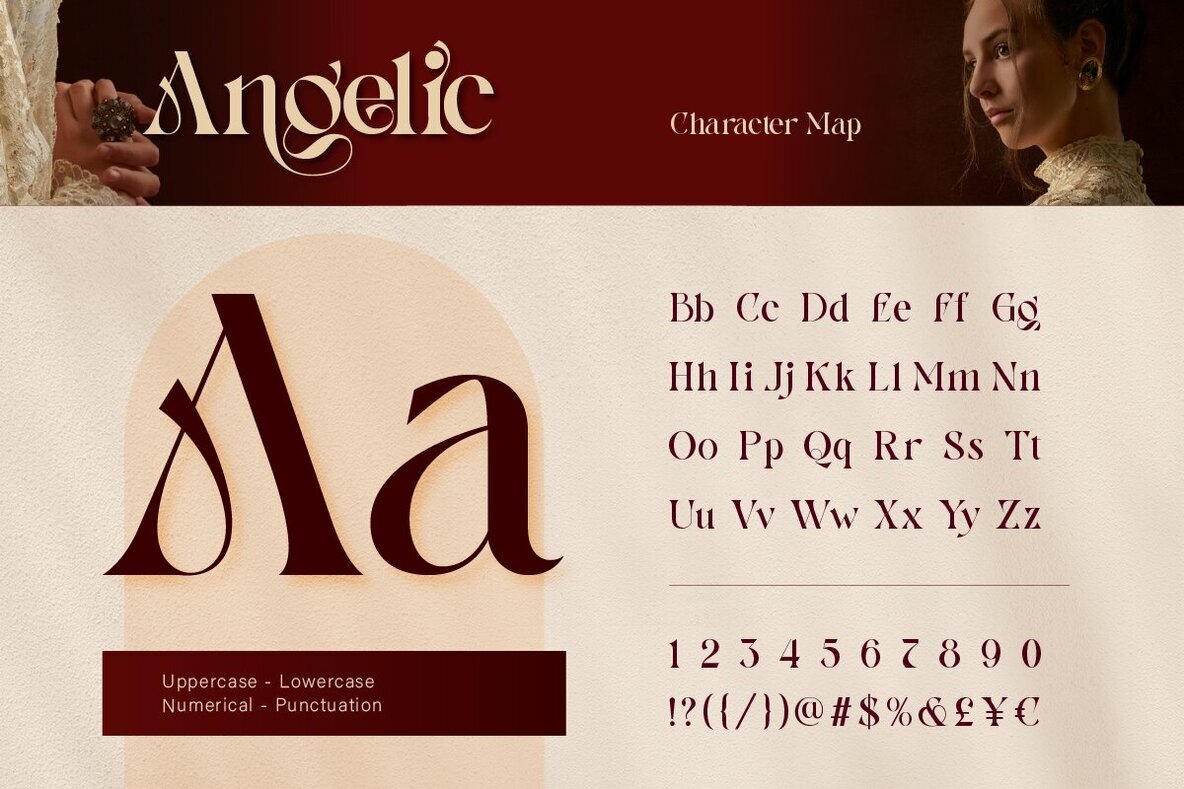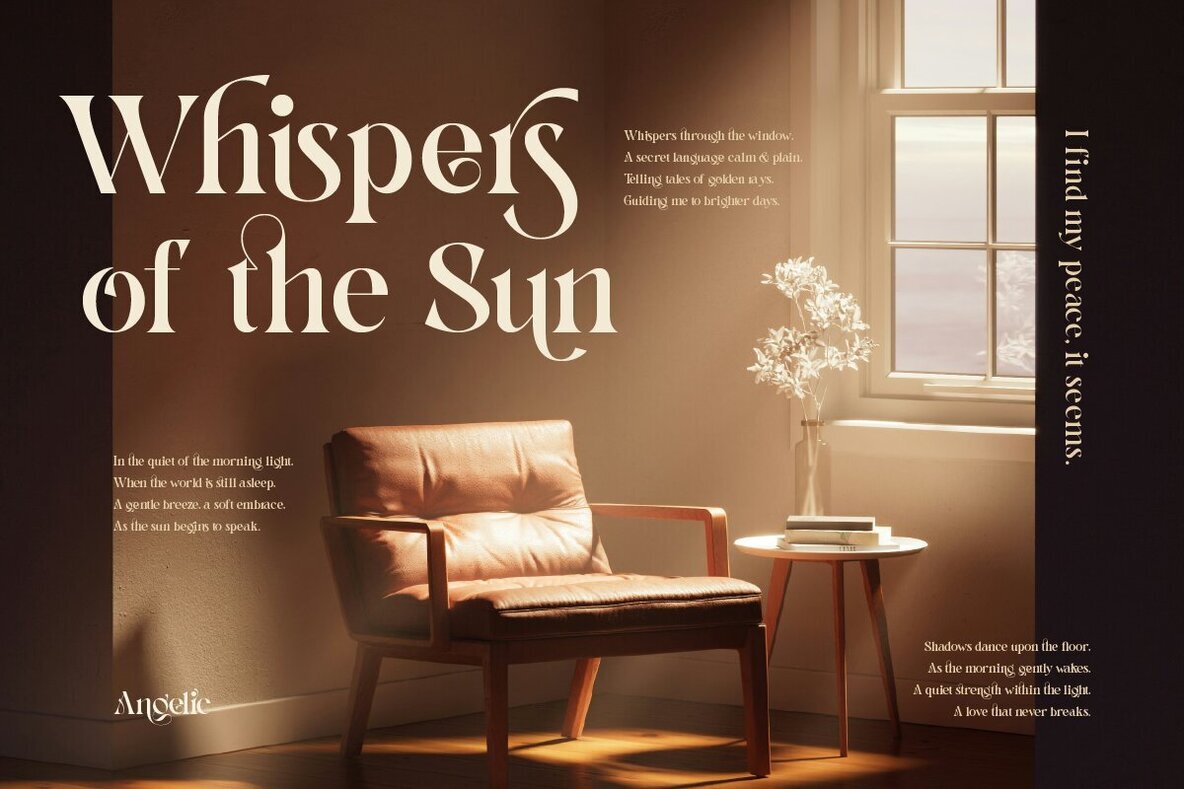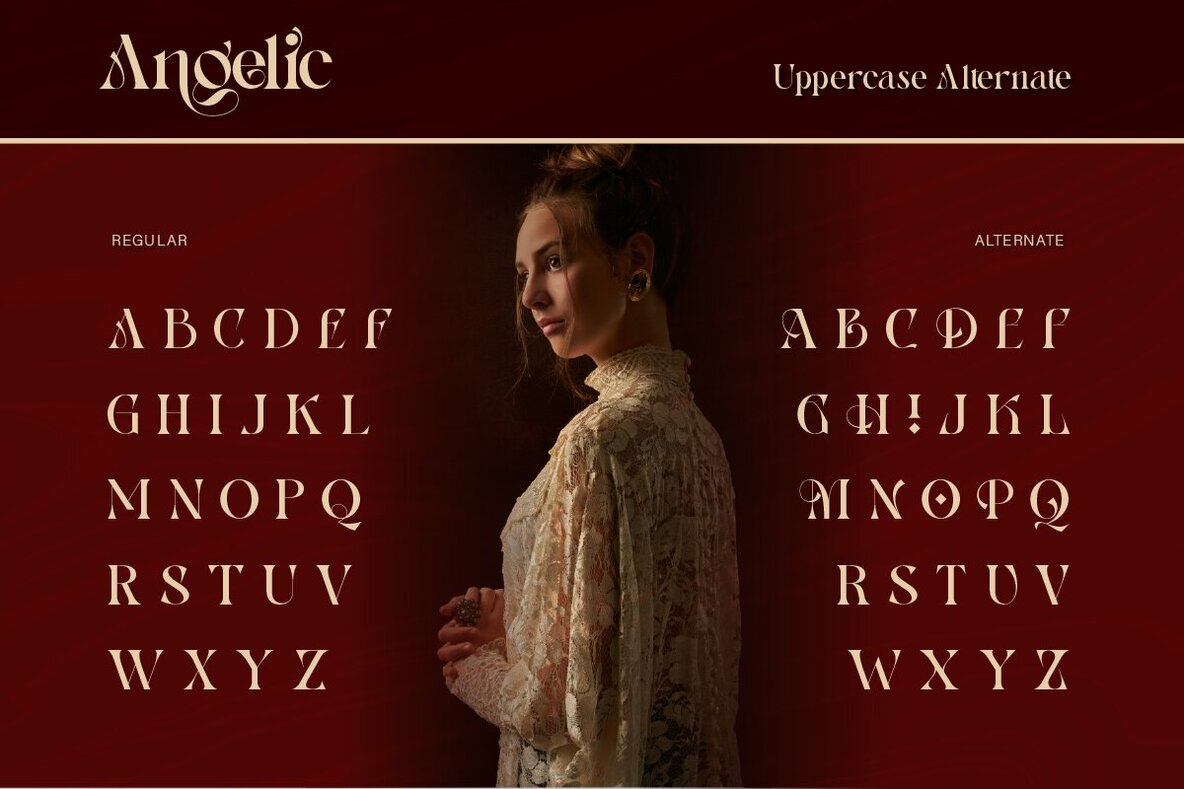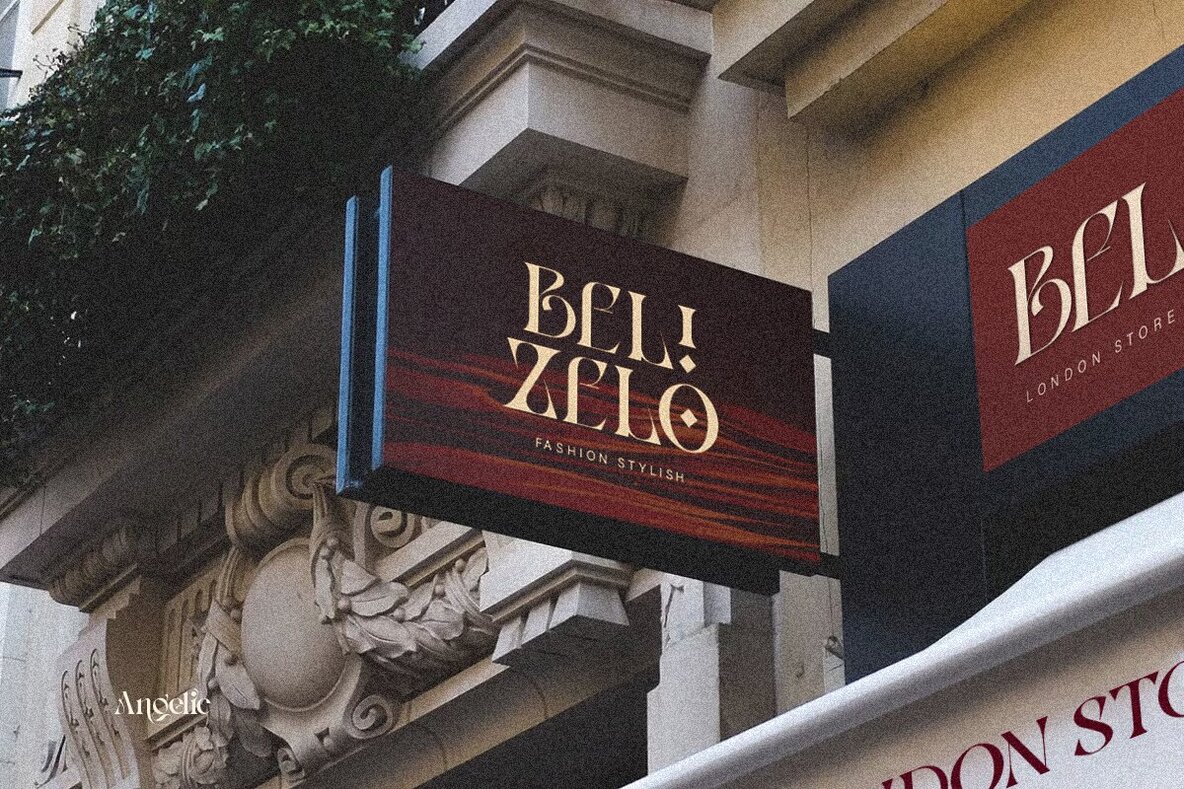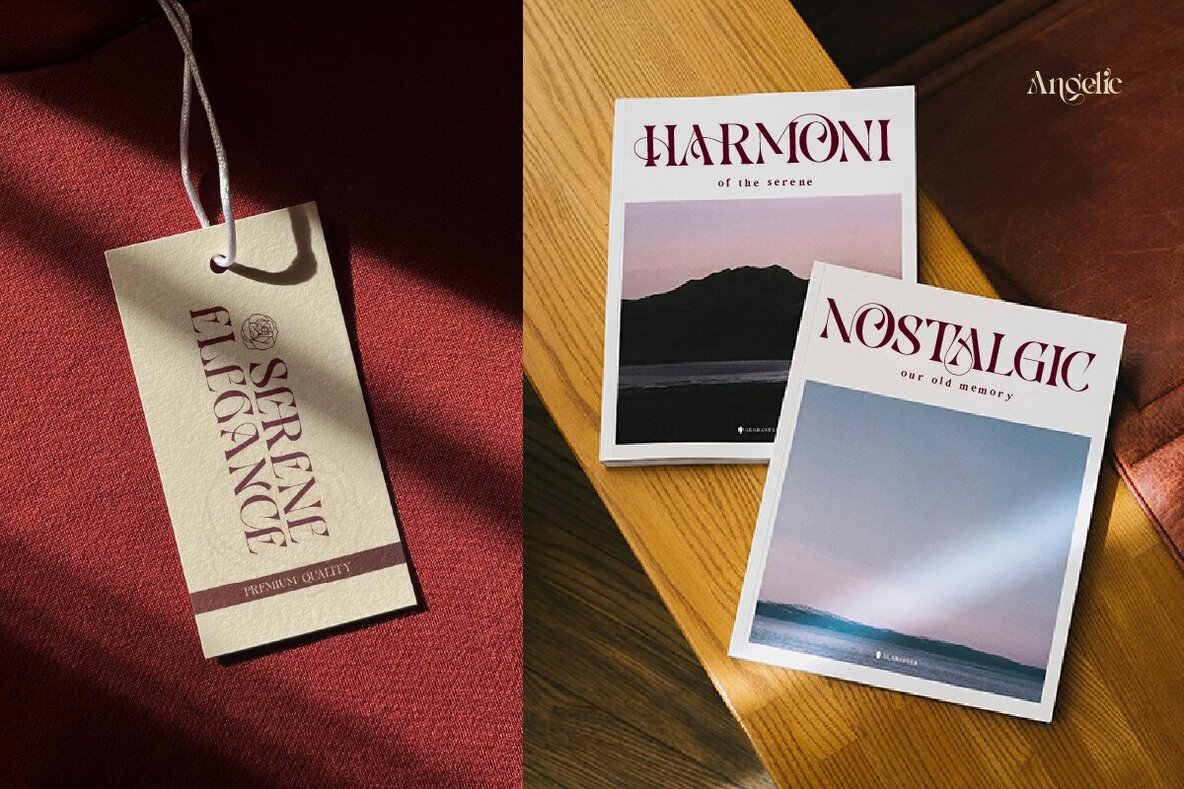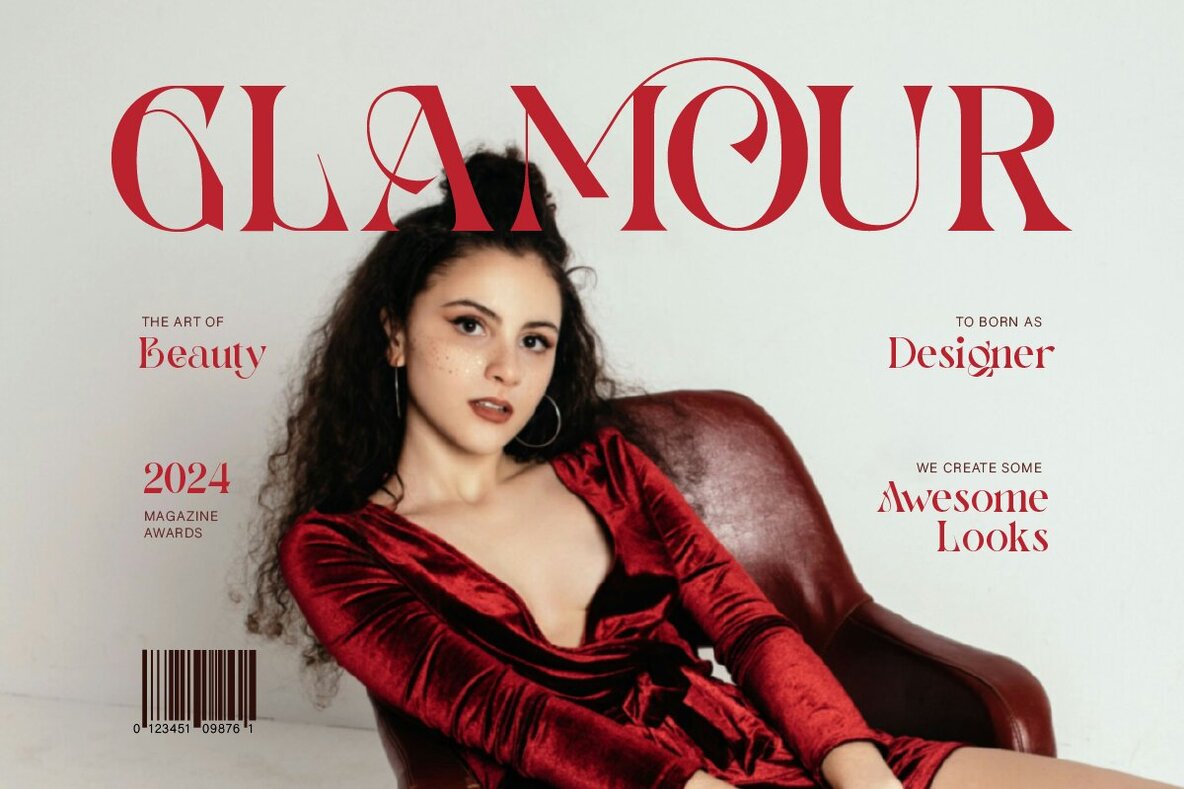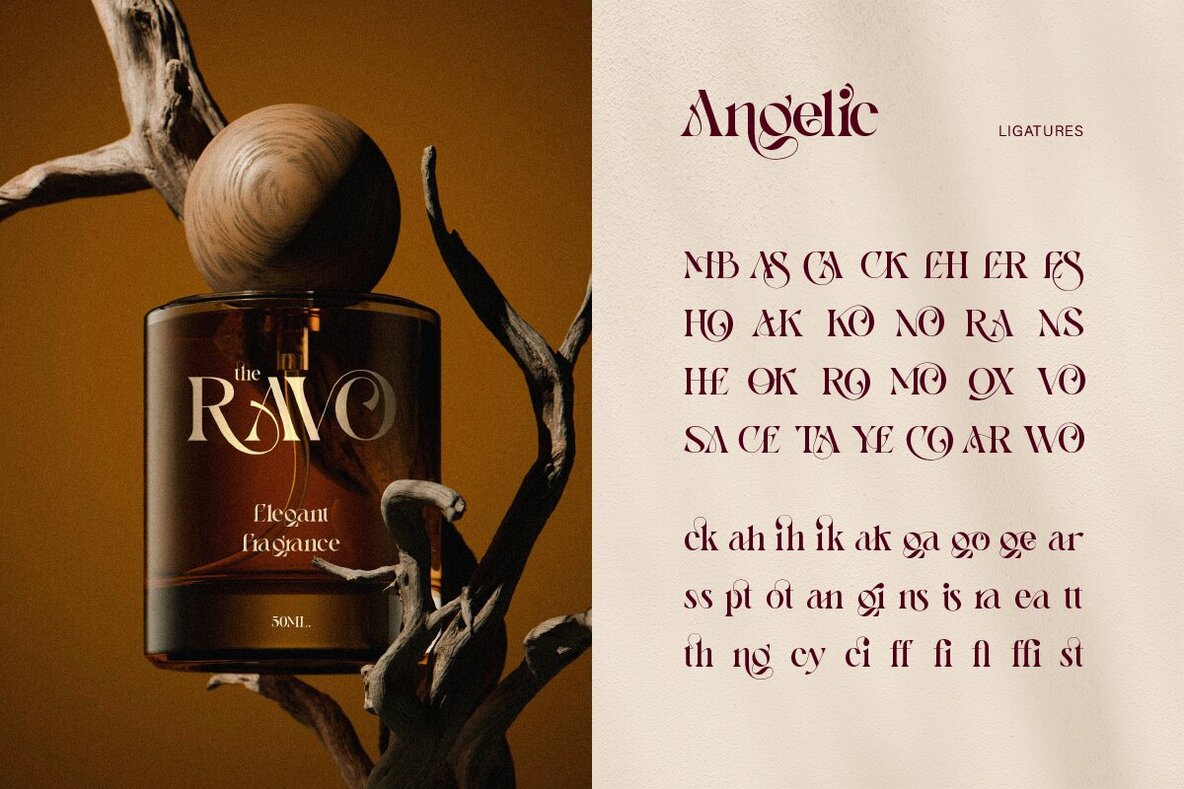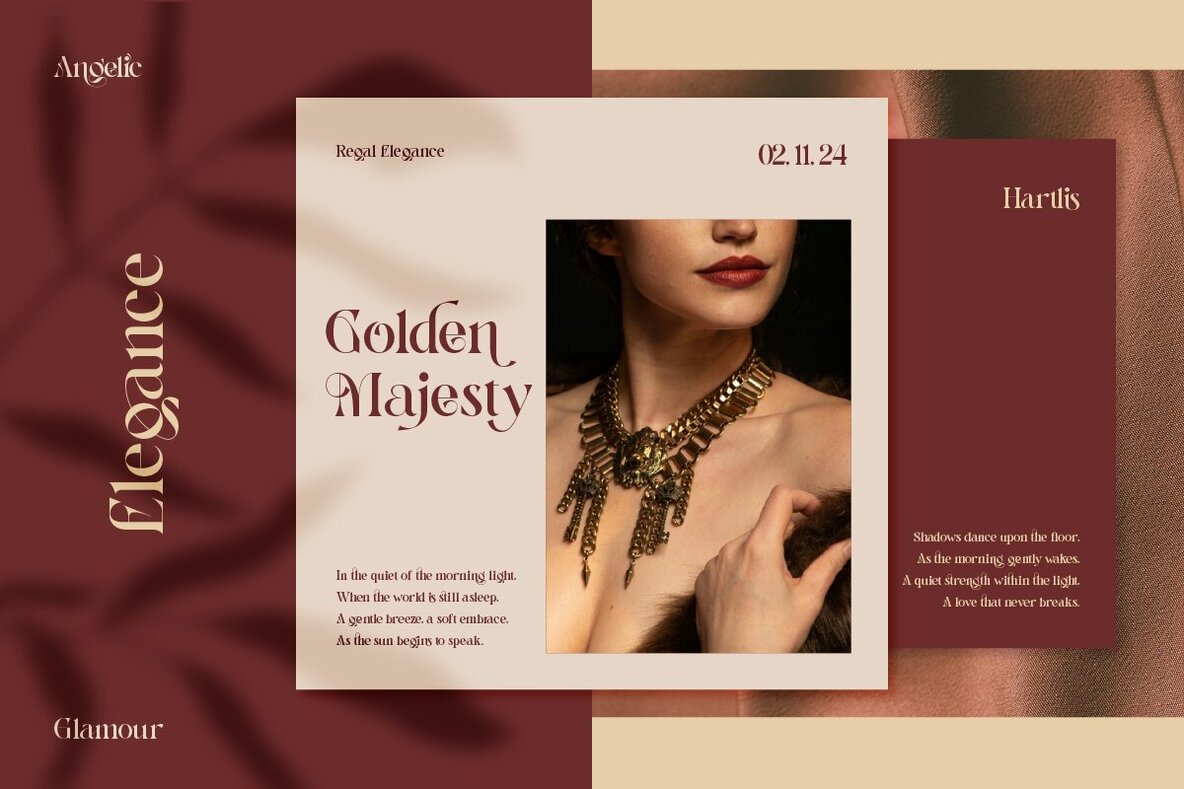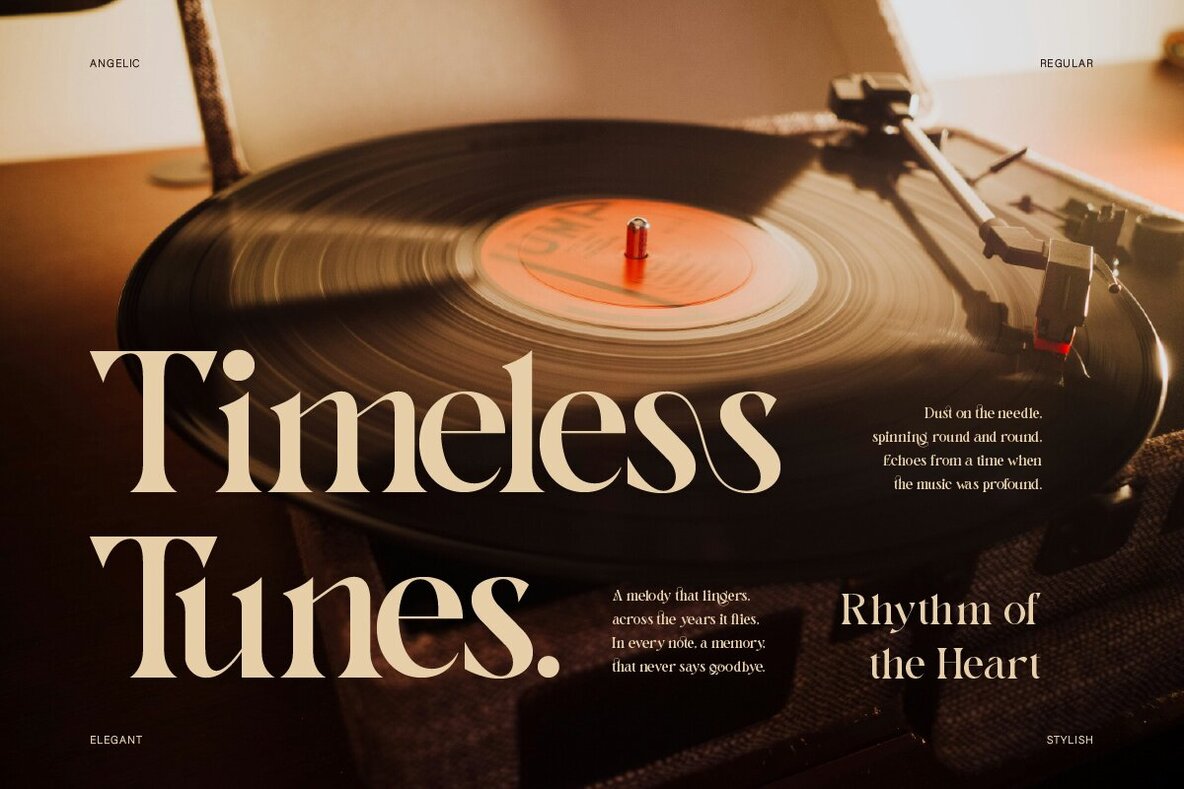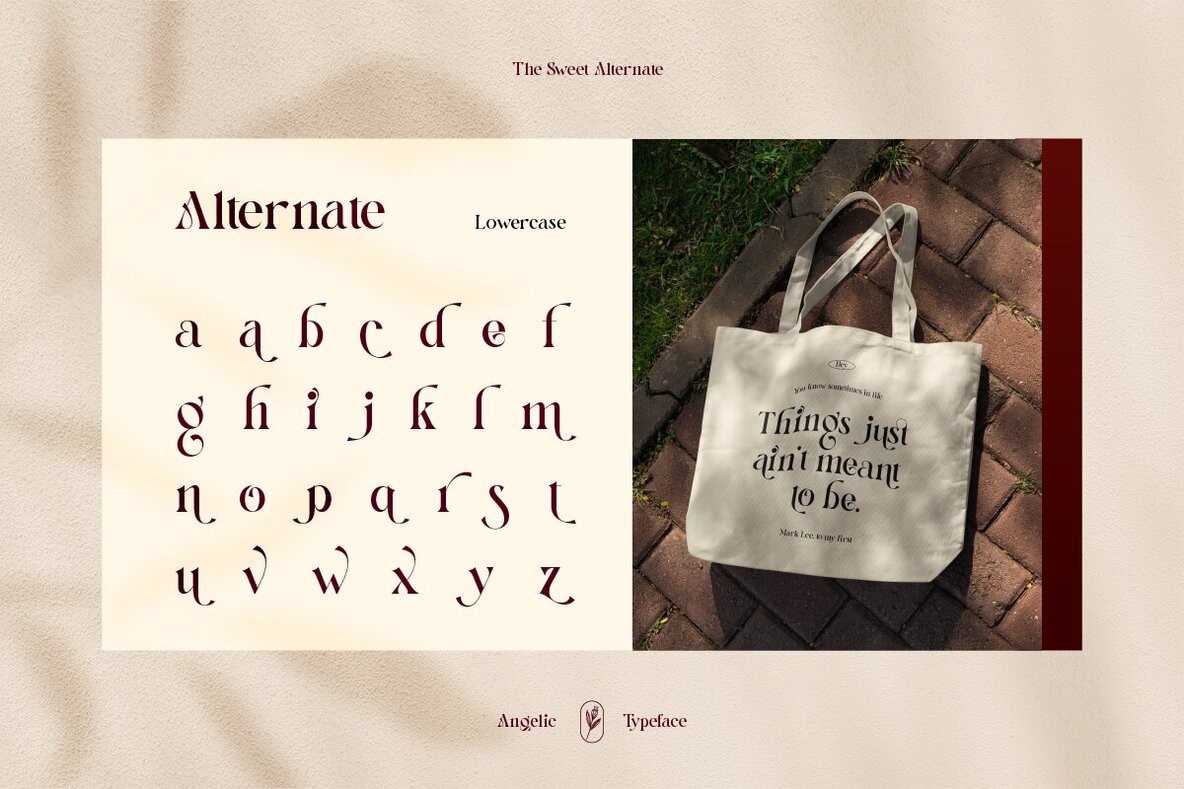
Angelic 1
Angelic is a serif typeface that exudes luxury, elegance, and modernity. With its clean lines and sophisticated curves, it brings a unique and classy look to any design project. Ideal for luxury-themed projects, fashion magazines, high-end branding, editorial design, and luxurious invitations, Angelic ensures your work stands out with a refined touch.
This typeface includes a comprehensive A-Z set, numbers, punctuation, alternates, ligatures, and multilingual support. Its versatility makes it suitable for various applications, allowing you to create designs that are both captivating and stylish. Elevate your creative endeavors with the timeless allure of this exquisite typeface.